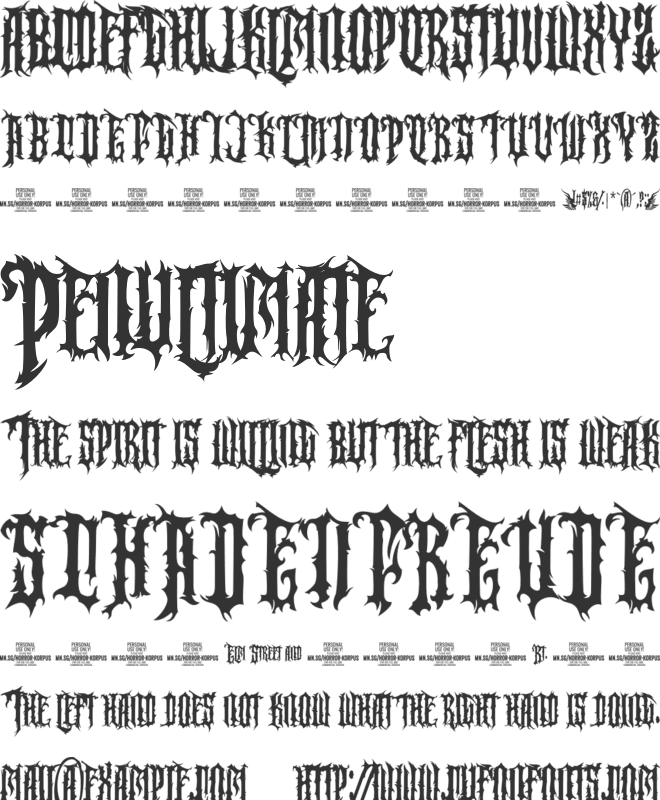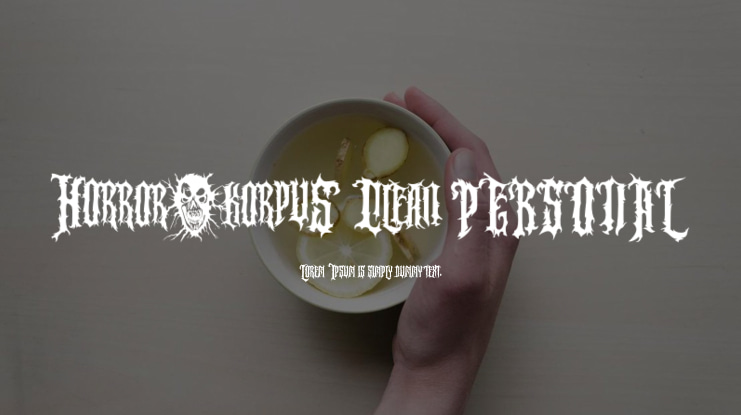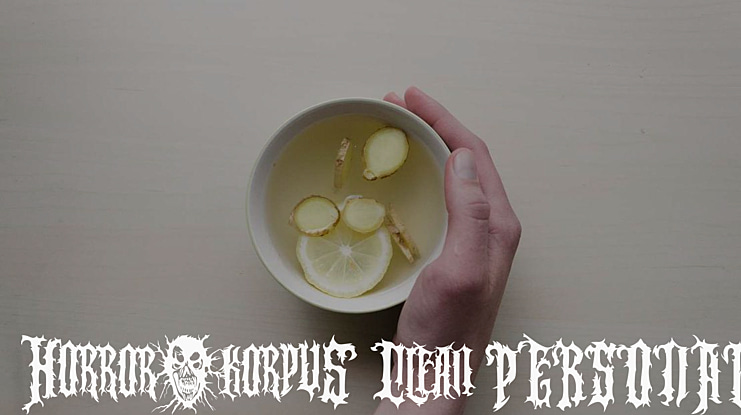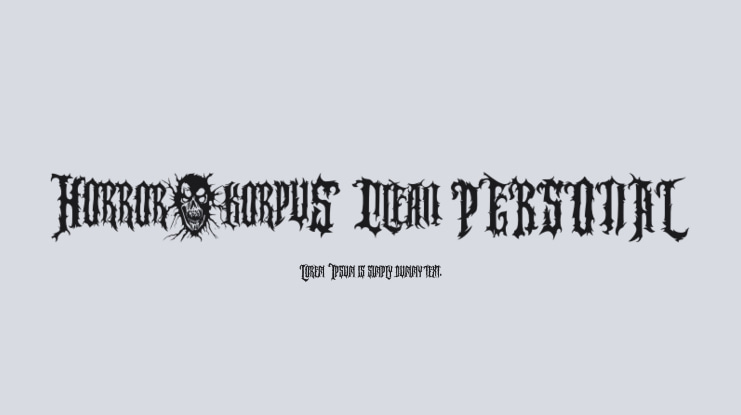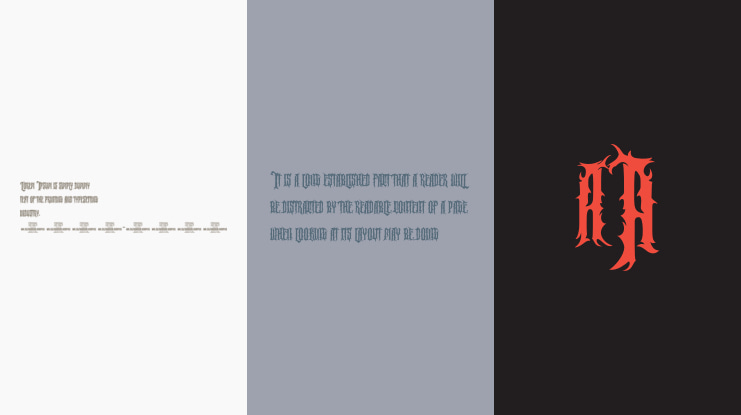
Horror Korpus Clean PERSONAL Font Family
Horror Korpus represents an artistic rebellion, a rejection of cleanliness and perfection.
It is the perfect choice for heavy metal logos and horror movie posters, injecting a fiery and dark essence into your designs.
Give words wings by enclosing them in ( ), { }, [ ], or any other matching pair of symbols. For example:
Use ¶ ¦ ‡ ¤ × ÷ ≠ ± ~ to create demonic symbols such as devils and skulls. For example: scary×movie